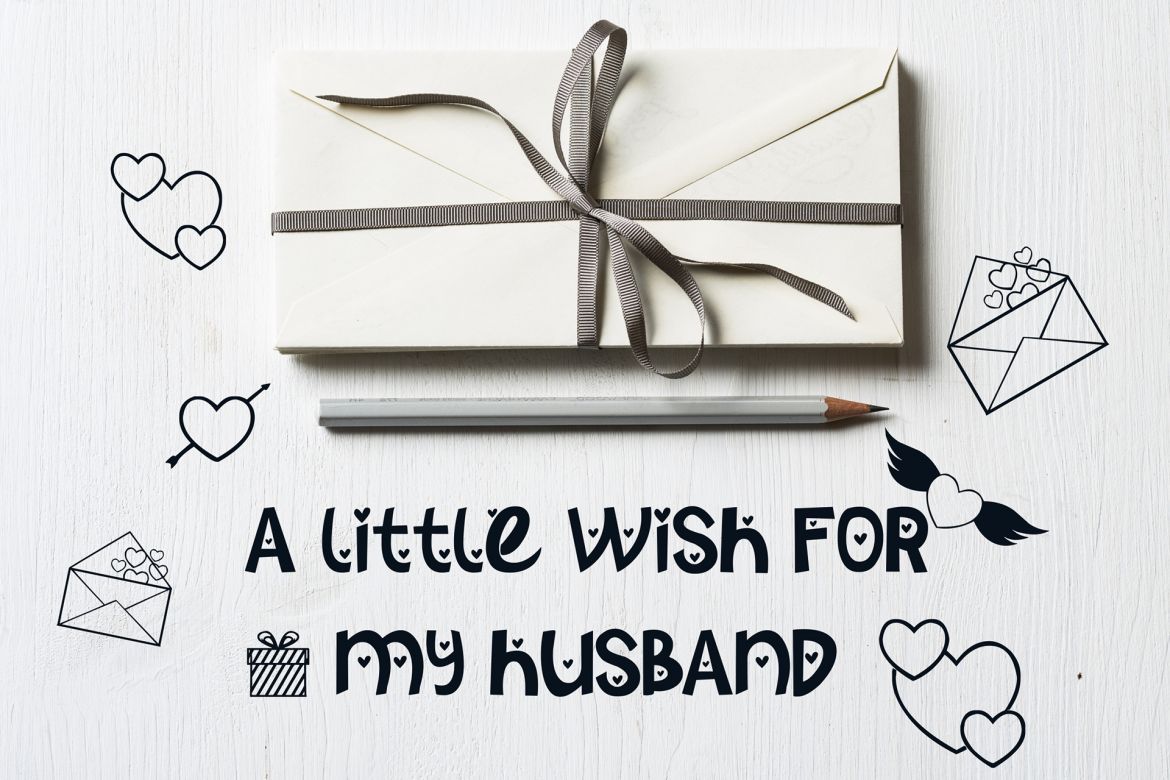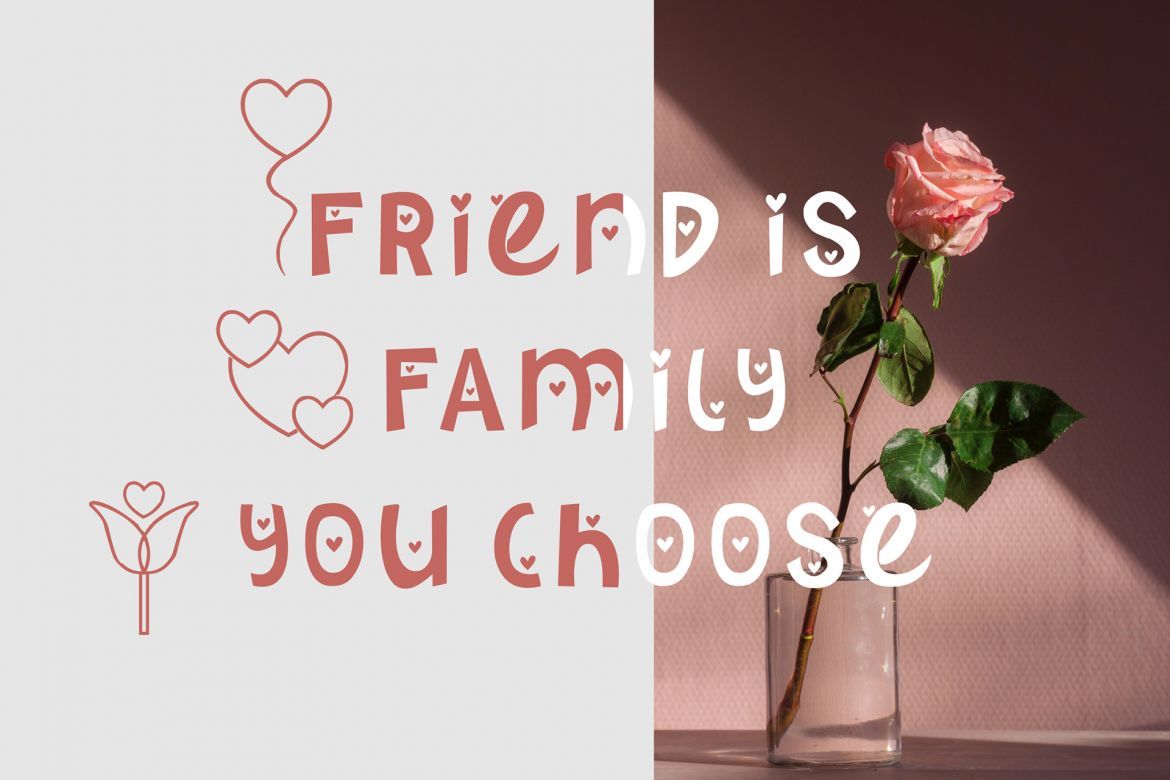
Morning Lovening Font
The Morning Lovening is a beautiful display font with a very cute design that can add an elegant impression to your design, which can be used in a variety of romantic moments in your life and your partner plus 11 Extras doodles to enrich your design.